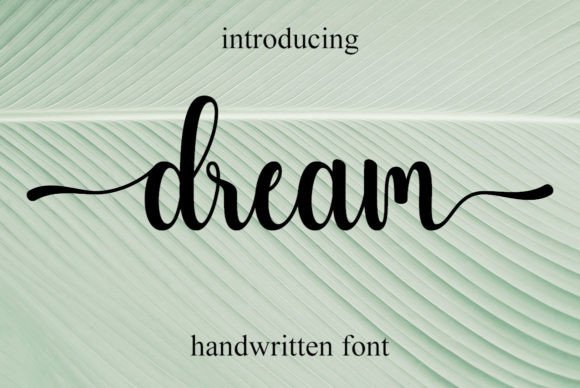
Introducing Dream Font, the perfect script font for your PDF brochure needs! Created by the talented designers at Hardiboy Design, this font is a stunning addition to any project. Dream Font is a simple and friendly handwritten font that can be used for various purposes, including crafts, digital designs, presentations, or greeting cards. With its unique style, Dream Font has the potential to become your go-to font for any occasion.
What sets Dream Font apart is its PUA encoding. This feature allows you to easily access all the glyphs and swashes, giving you the freedom to create and customize your designs with ease. This font family is perfect for adding a personal touch to your projects, making them stand out from the rest.
Dream Font is the best choice for anyone who wants to create a stunning PDF brochure. Its stylish script design will capture the attention of your audience and make your content look professional and polished. With Dream Font, you can bring your ideas to life and create beautiful, eye-catching designs.